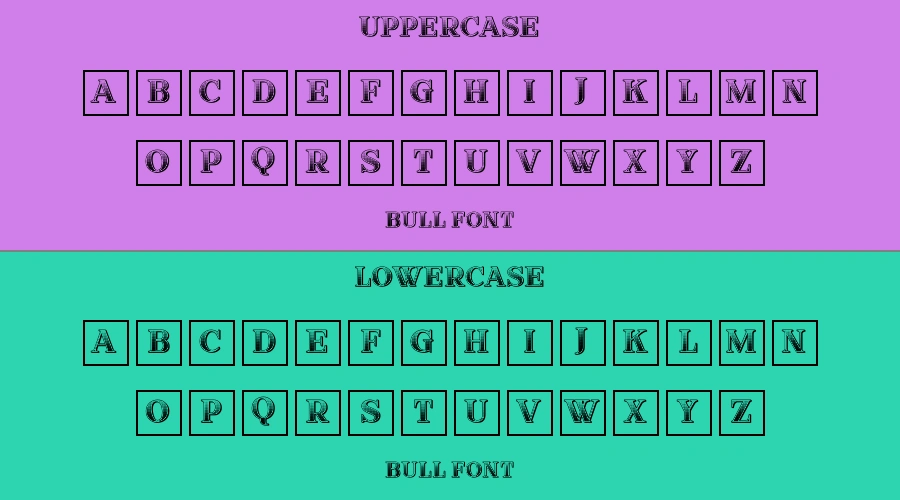
About Bull Font
When typographic excellence matters most, Bull Font delivers through its thoughtful blend of brush influence and technical accuracy. Specially crafted for product packaging, it offers the reliability and technical excellence required for sophisticated design work. Every detail serves a purpose.
The character set showcases thoughtful details like ball terminals alongside functional dingbat elements. This proves especially valuable in instruction steps, where microfilm readability directly influences results. Particular attention was paid to joint detail and technical tradition during development.